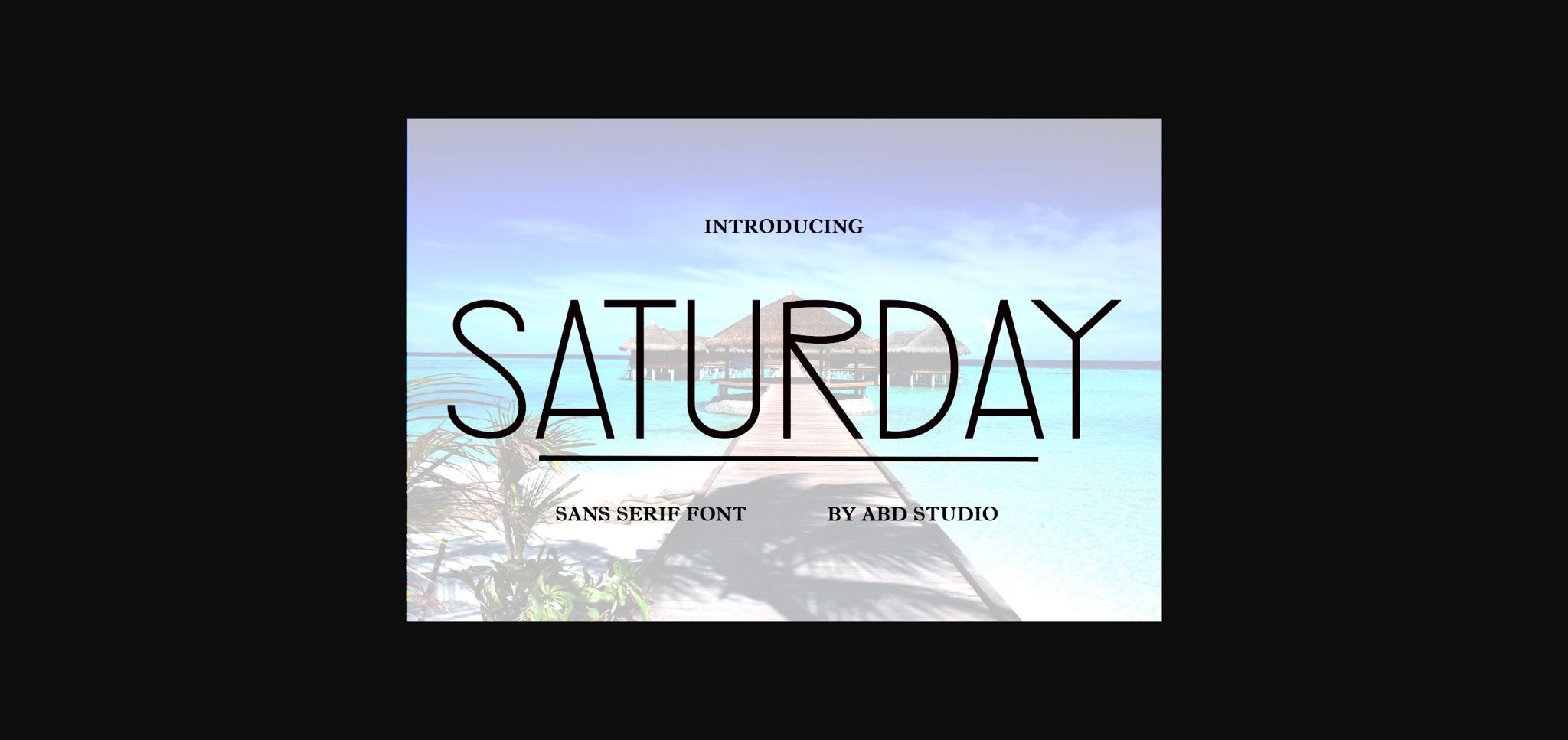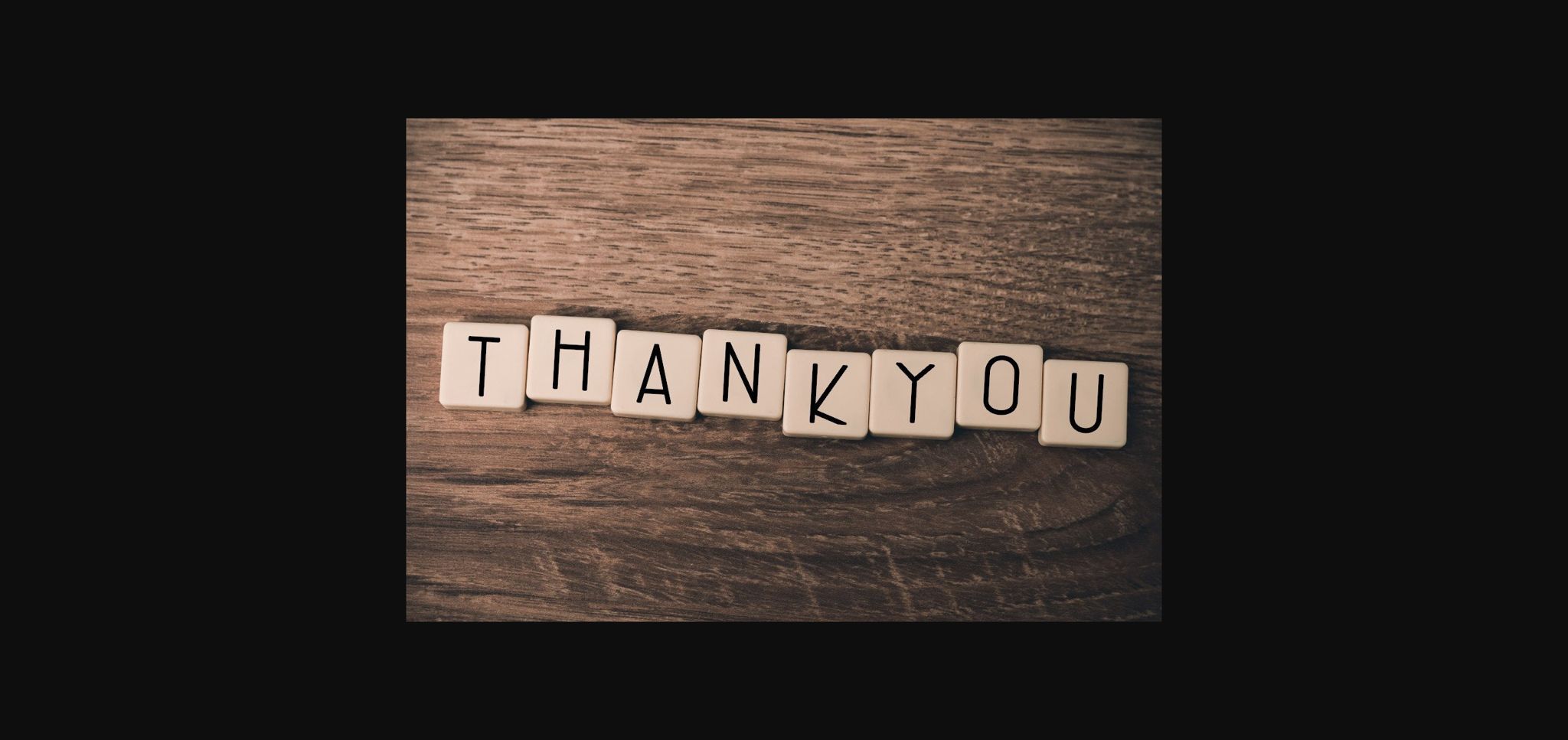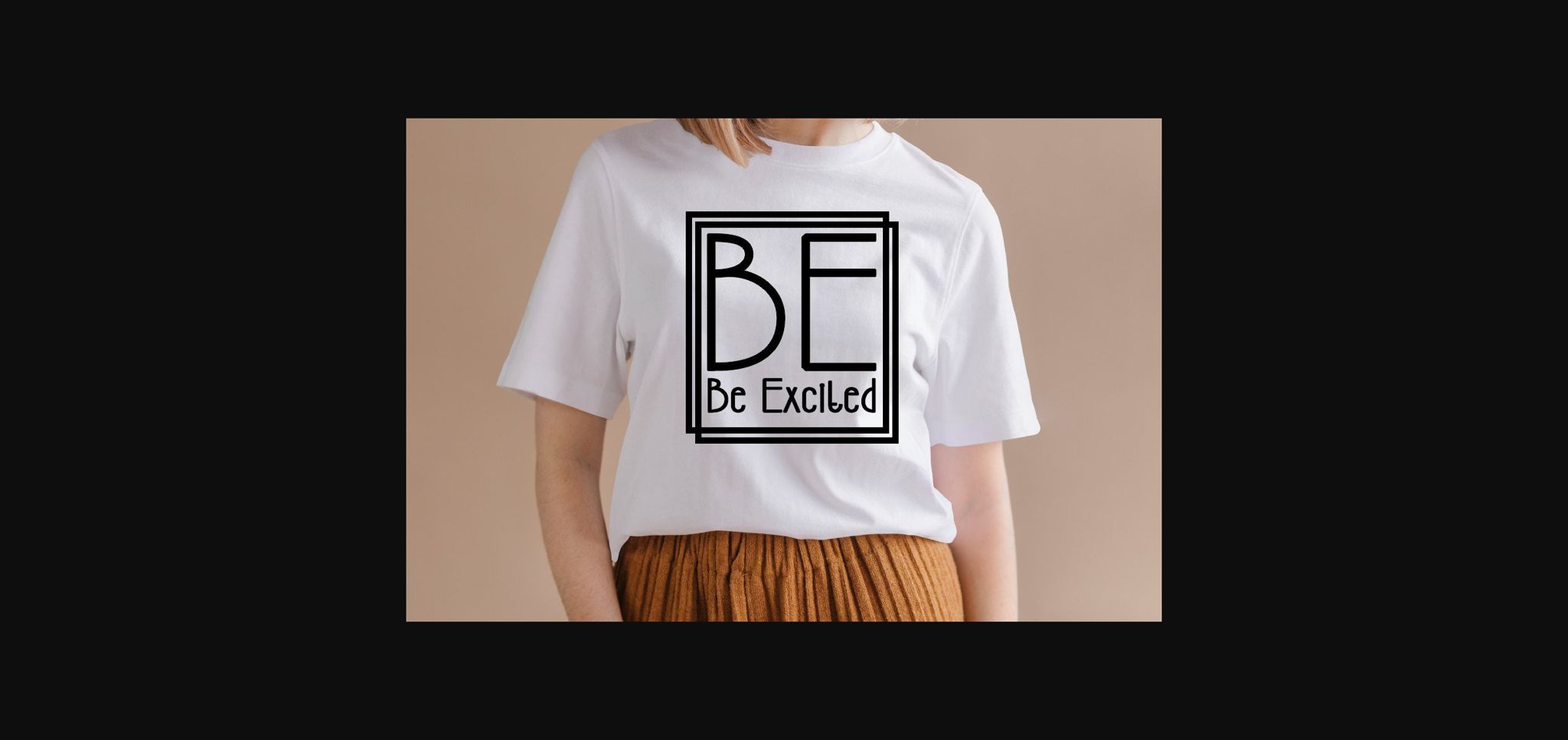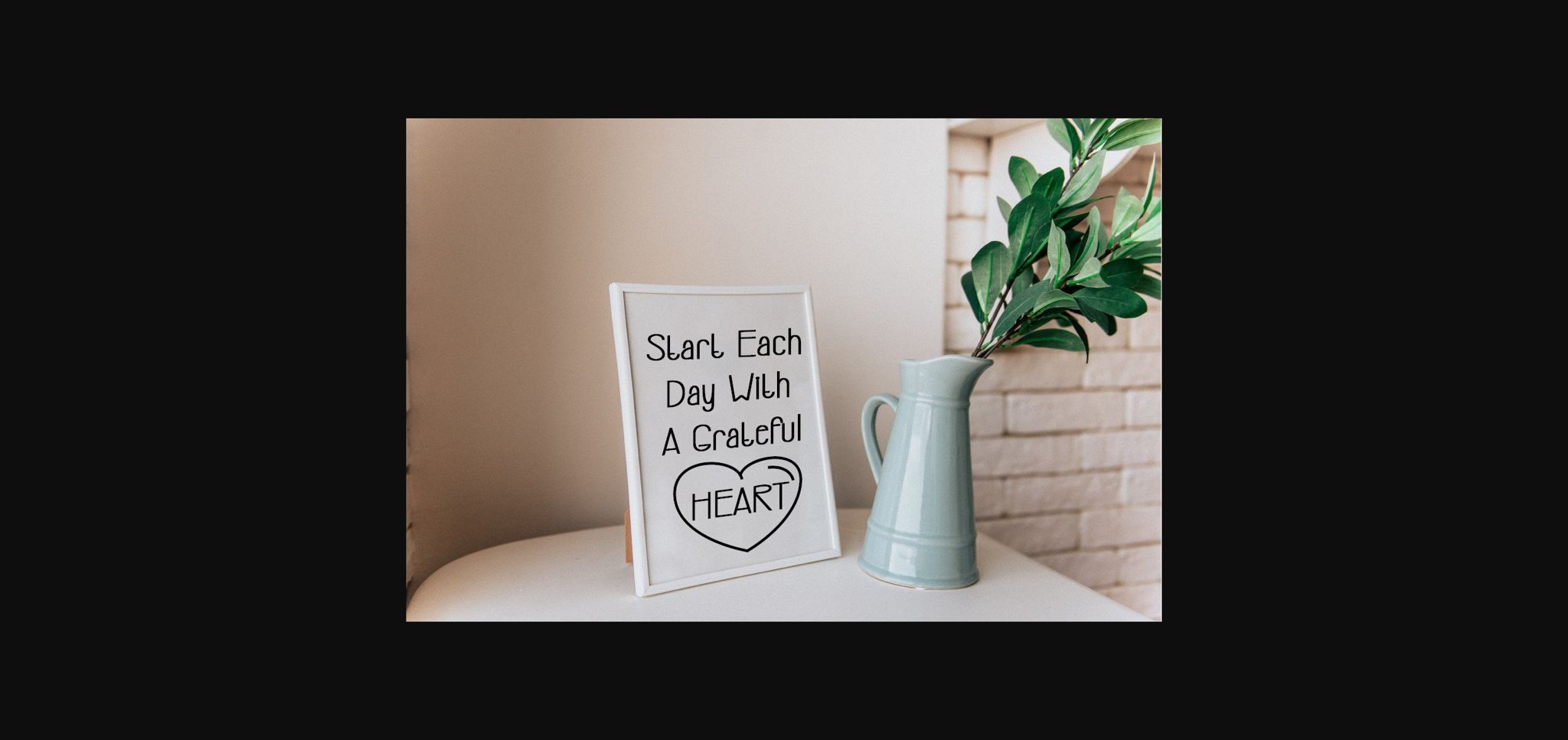
About Saturday Font
Saturday is a minimalist and neat sans serif font. It can easily be matched to an incredibly large set of projects, so add it to your creative ideas and notice how it makes them stand out!